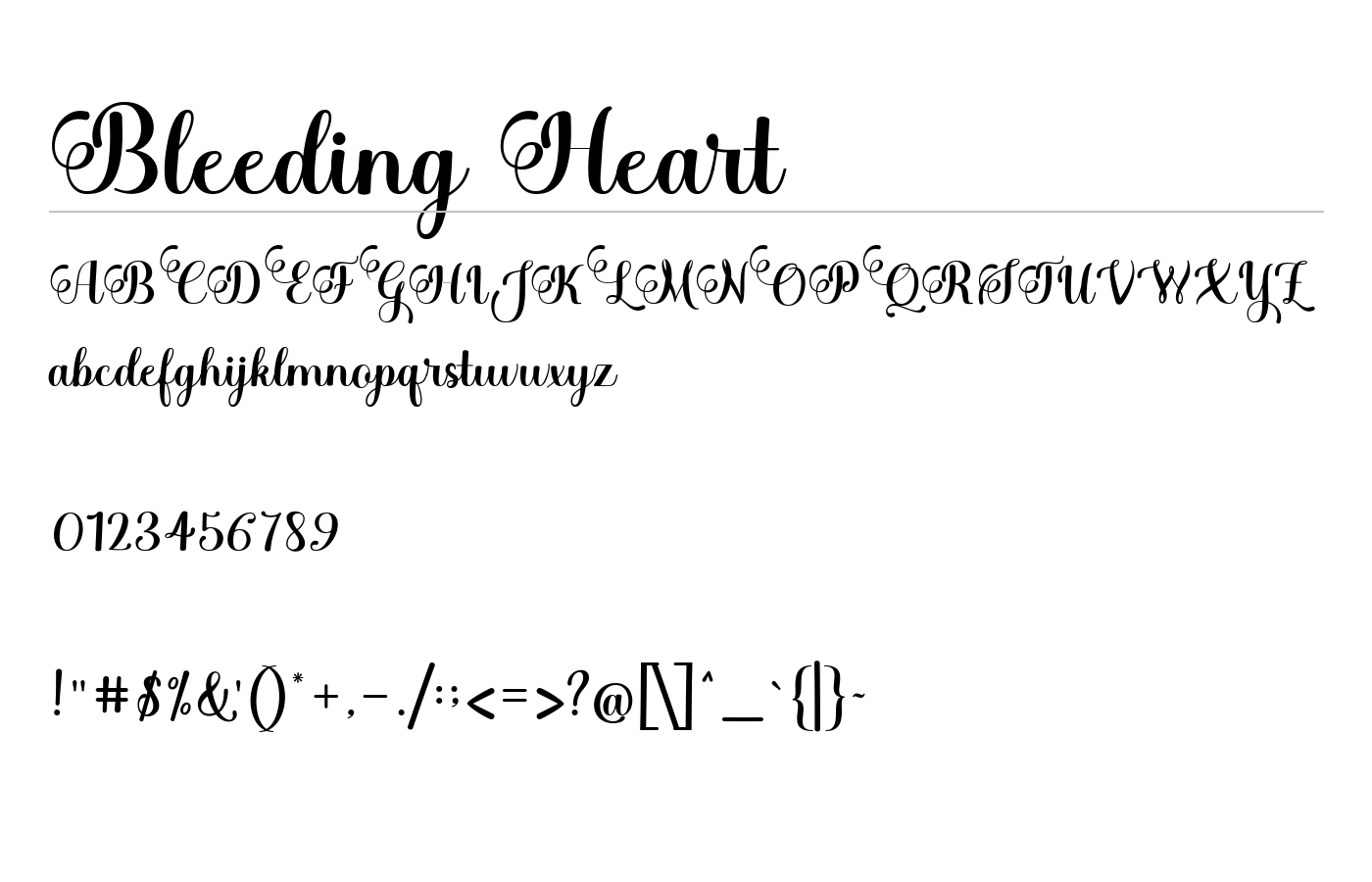
Bleeding Heart is an elegant script font featuring delicate, flowing strokes with distinct ornamental swashes, especially in the uppercase letters, giving it a refined and romantic feel. Its medium weight and moderate contrast make it suitable for decorative headlines, invitations, and branding in fashion or luxury contexts where a touch of sophistication and charm is desired. The handwritten style with both uppercase and lowercase support adds personality while remaining legible for special occasions and creative designs.
Bleeding Heart Font
About Bleeding Heart Font